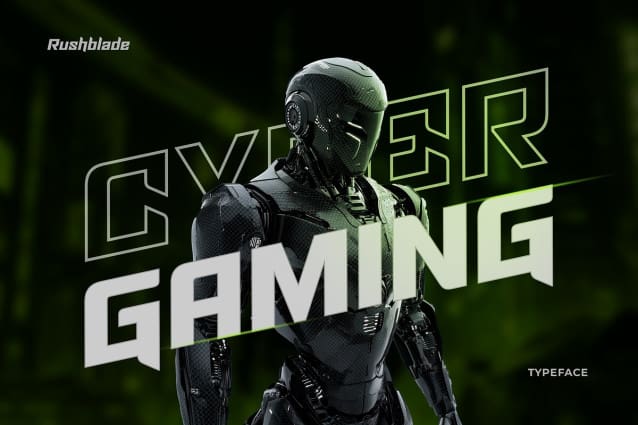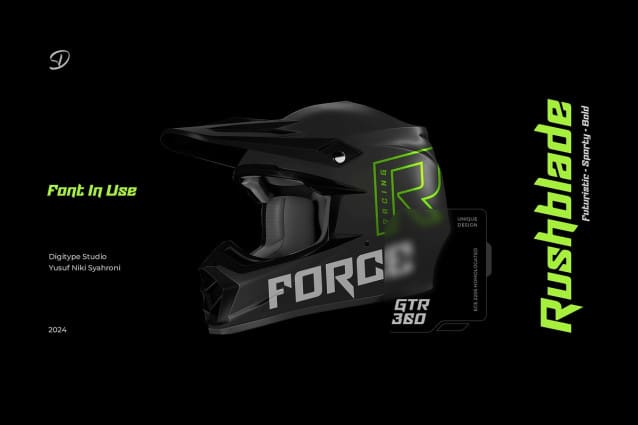
Rushblade Futuristic Font
Rushblade Futuristic Font is a futuristic, sporty, and bold display typeface, crafted for designs that demand a cutting-edge, high-speed aesthetic. Drawing inspiration from the dynamic world of racing and gaming, Rushblade injects a sense of movement and power into every project. Its sharp, angular forms and strong structure make it ideal for logos, headlines, and branding that command attention.
Featuring bold geometric cuts and aggressive angles, this typeface brings a modern, high-energy style to both uppercase and lowercase characters. Its versatility shines in tech-driven and athletic contexts, making it the perfect choice for esports, automotive brands, or any project seeking a high-impact, forward-thinking identity.